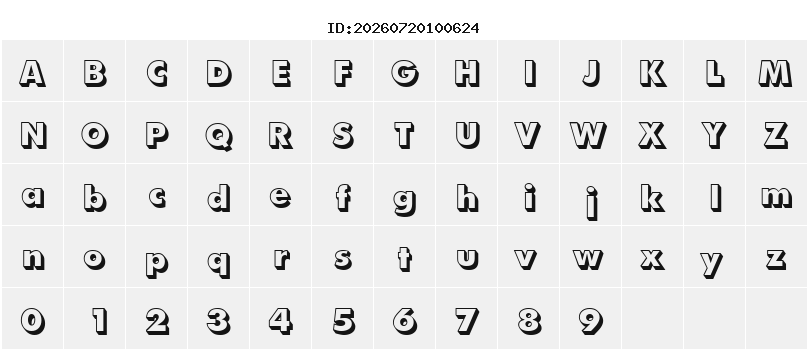
• Font Name: Futoral Outline Shadow DB
Futoral Outline Shadow DB.ttf is a modern, elegant sans-serif font designed for ultimate readability and visual harmony. Perfect for branding, headlines, web design, and print materials.